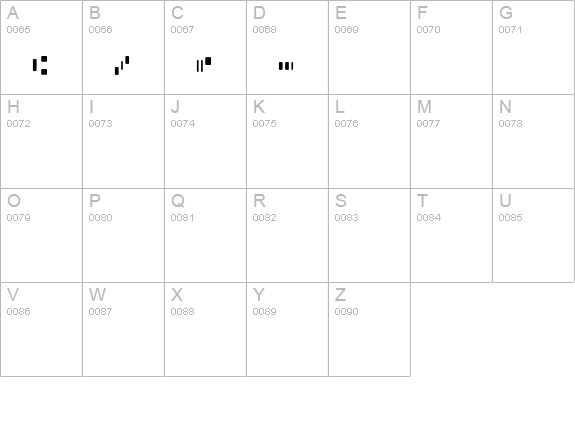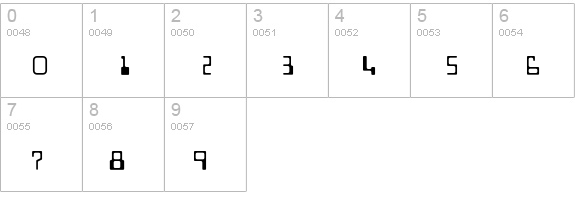
MICR 010 Font Details
MICR 010 font is a sleek and professional typeface that is ideal for financial and banking-related documents. Known for its clarity and precision, this font is perfect for printing checks, invoices, and other financial materials. With its distinct characters and clean lines, MICR 010 font ensures accurate and error-free reading of important information. Best of all, MICR 010 font is available for free download at FontsMarket.com. This means you can easily access and use this high-quality font for all your financial printing needs without any cost. Don't miss out on the opportunity to enhance the readability and professionalism of your financial documents with MICR 010 font, now freely available for download.